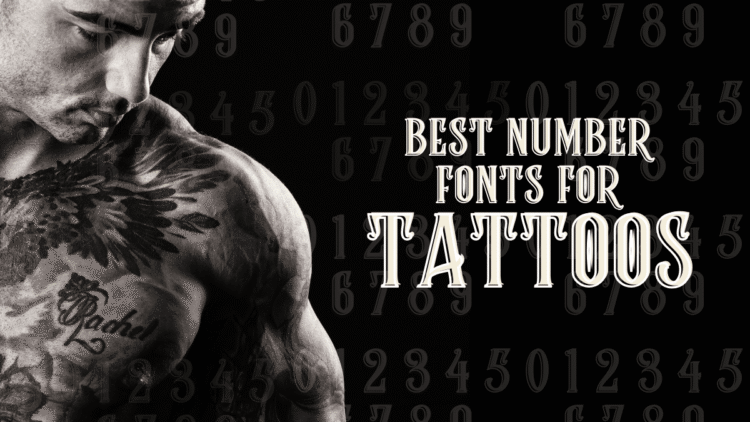
13+ Best Tattoo Number Fonts for 2023 (With Images)
Best Tattoo Number Fonts
If you’re on the hunt for the best tattoo number fonts, you’re in the right place! Tattoos are timeless expressions of artistry that transcend eras and fashion trends.
Whether you’re crafting a fictitious tattoo concept or presenting a vision board to impress a client, our curated selection of the finest tattoo number fonts is here to elevate your creative journey.
Dive into our top picks below and discover the perfect fonts for your tattoo-inspired designs!
What Are the Best Tattoo Number Fonts?
Tattoo number fonts hold a unique appeal for those seeking to incorporate numerals into their ink creations. These fonts offer a distinct character and style that can lend depth and significance to your tattoos. Drawing inspiration from various sources, these fonts range from classic to contemporary, ensuring there’s a perfect match for your artistic vision.
Whether you’re looking to etch a meaningful date, a lucky number, or an essential numeral, the world of tattoo number fonts is rich with options. Discover the perfect font to make your numbers come alive in ink!
Why Choose the Best Tattoo Number Fonts?
Selecting the best tattoo number fonts for your next ink venture comes with its own set of compelling reasons.
Firstly, these fonts possess an innate ability to capture attention with their bold and striking appearance, allowing your tattoo to serve as a powerful statement piece. Moreover, tattoo number fonts exude character and personality, enabling you to showcase your style and preferences through your body art.
Furthermore, the appeal of opting for the best tattoo number fonts lies in their remarkable versatility. Whether you’re inclined toward a traditional or contemporary aesthetic, you’ll find a font that seamlessly aligns with your creative vision.
Thanks to their popularity, a wealth of exemplary fonts and inspirational designs are readily available online, making the selection process a breeze.
So, if you’re in search of an edgy and chic tattoo font that embodies both style and substance, look no further than the world of tattoo number fonts. You’re in for a tattooing experience that promises to leave a lasting impression.
What are some of your favorite tattoo number fonts?
13+ Best Tattoo Number Fonts for 2023 (With Images)
1. Incognito Tattoo Font
Incognito Tattoo Number Font
Introducing “Incognito,” an exceptional blackletter font that draws profound inspiration from the world of tattoos and the vibrant kustom kulture scene. It is the ideal choice for those seeking the best tattoo number fonts for their creative projects, especially if you’re working on designs with a gothic, tribal, or tattoo-themed aesthetic. “Incognito” is available in two versatile formats: OTF and TTF, ensuring compatibility with various design software and applications. Elevate your tattoo-inspired designs with this extraordinary font choice.
2. Tattoo Beast | Best Tattoo Number Font